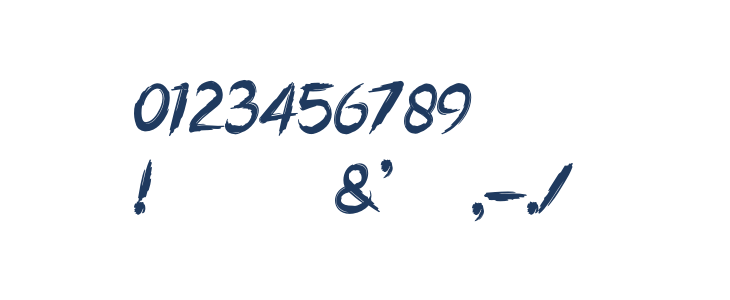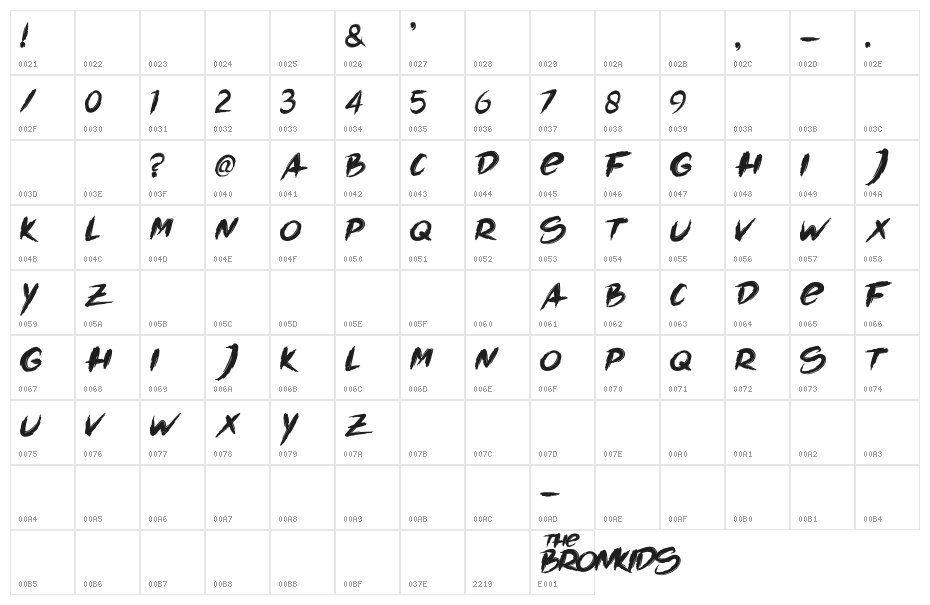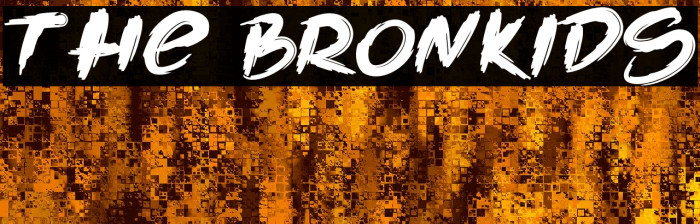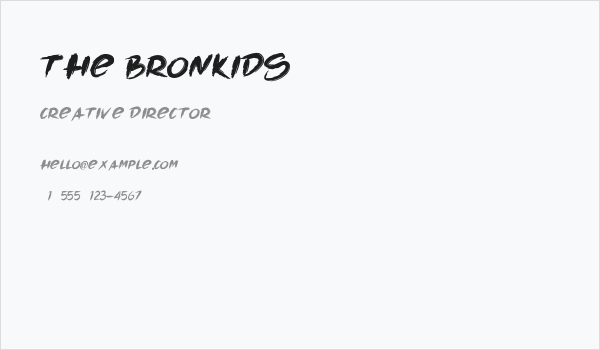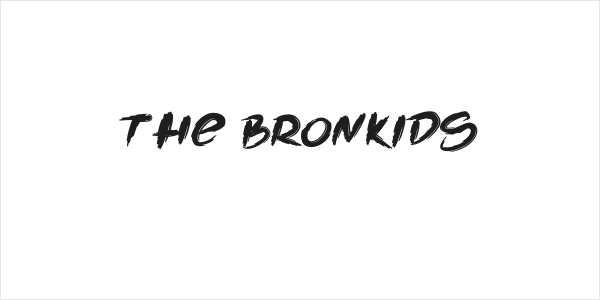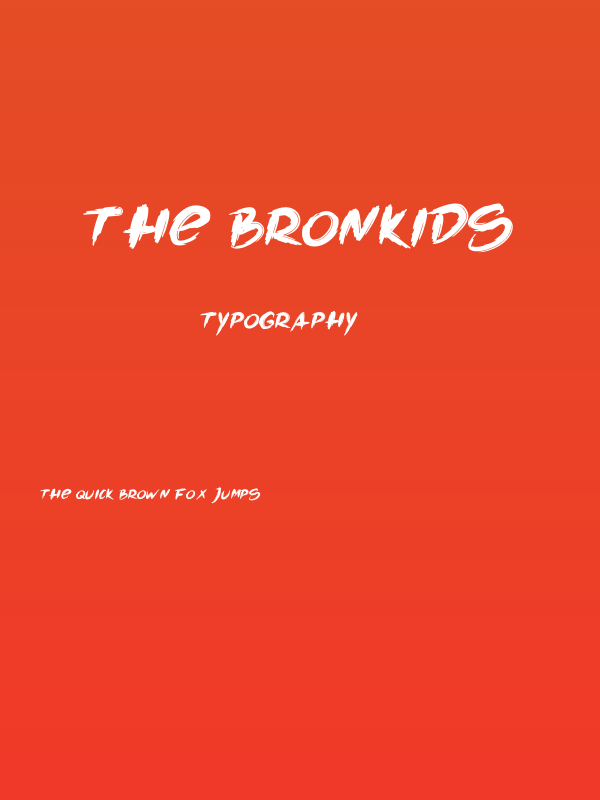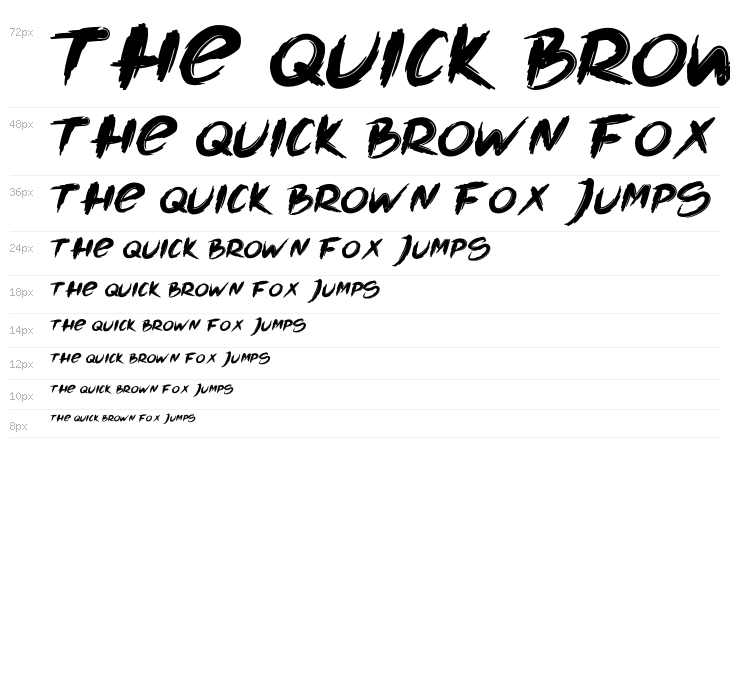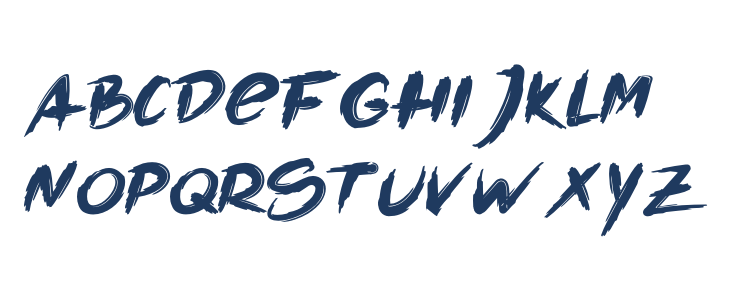
The Bronkids Font
This font features a dynamic and energetic brush script style, characterized by bold, sweeping strokes that convey a sense of movement and spontaneity. The letters are slightly slanted, giving a forward momentum that enhances its lively appearance. The uppercase and lowercase letters maintain a consistent style, with exaggerated curves and sharp edges that add to its expressive nature. The numbers and special characters follow the same design principles, ensuring uniformity across all glyphs. This font's boldness and artistic flair make it suitable for projects that require a strong visual impact.